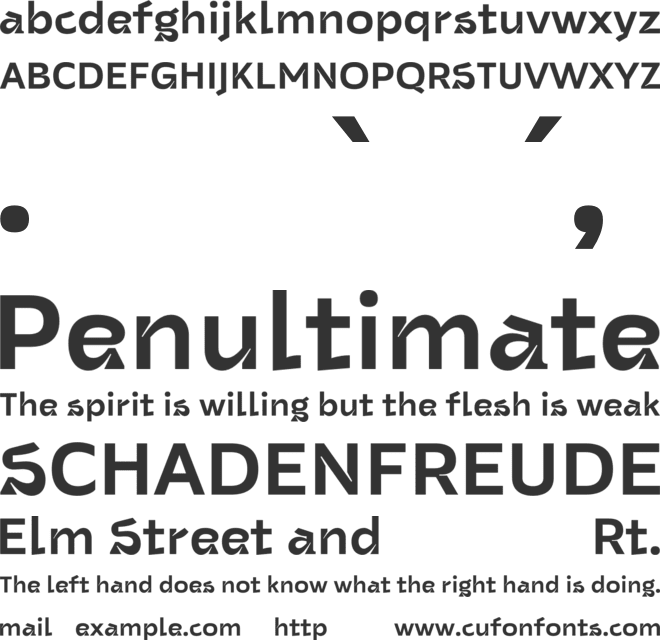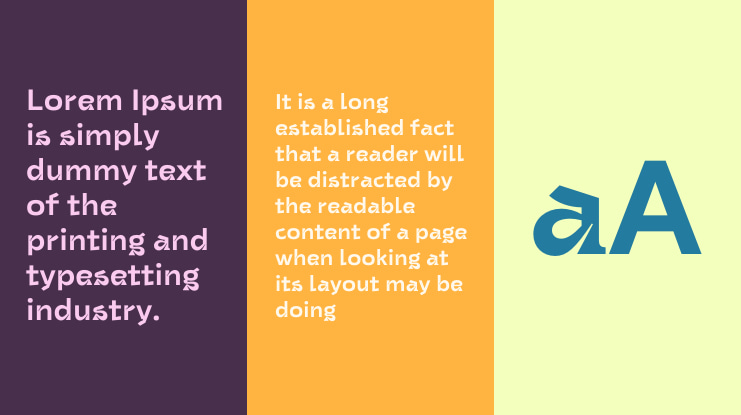
UT Aroge Trial Font
Universitype Foundry
UT Aroge brings a bold attitude wrapped inside quiet, sculpted curves. Built as an ink-trap display sans with strong personality, the font plays with tension: sharp terminals against soft curves, steady structure with a touch of rhythm.